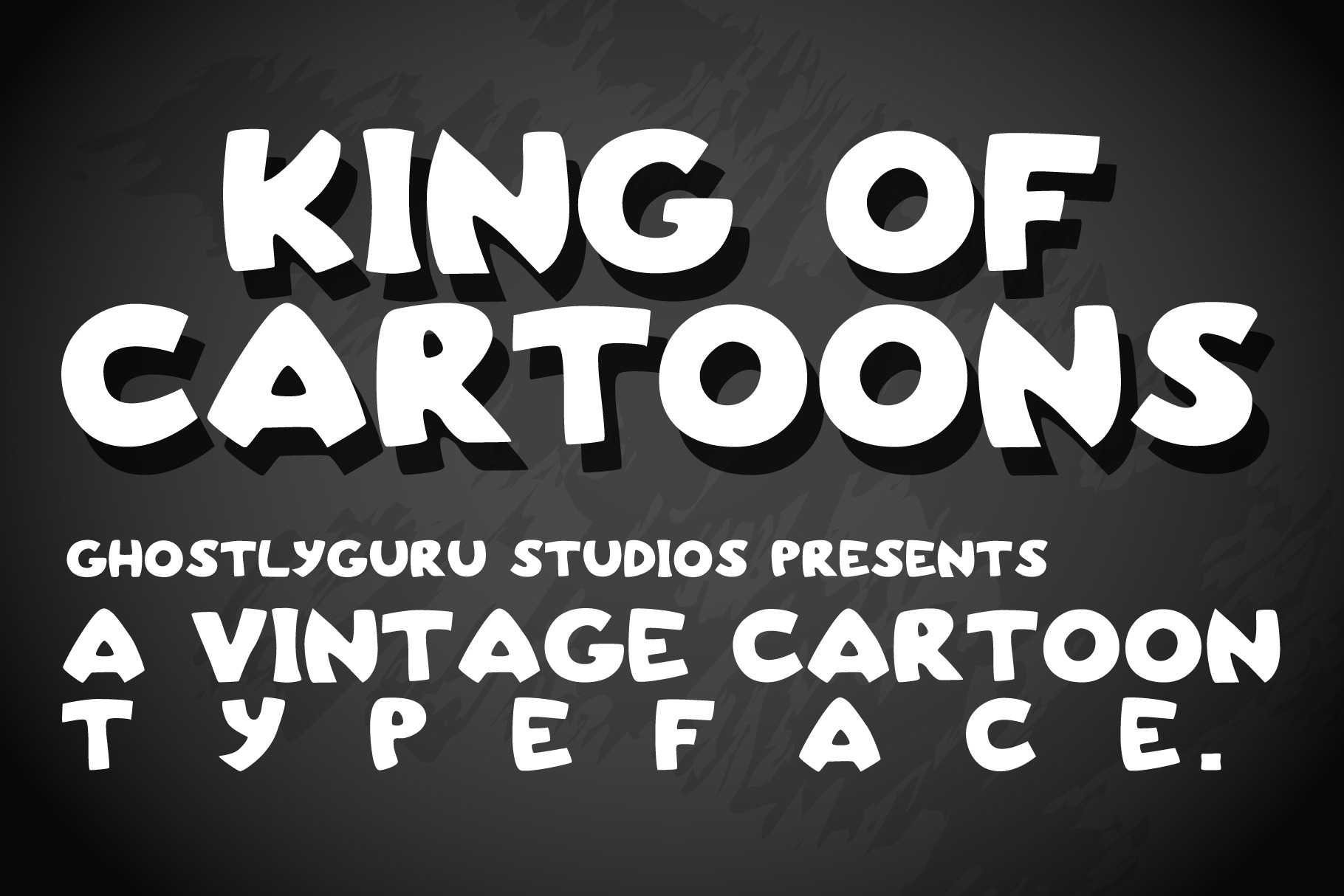
King Of Cartoons - Typeface
Here's a typeface named after the King Of Cartoons from Pee-wee's Playhouse!
It's a retro/vintage typeface inspired by cartoon title cards of yesteryear.. I'm no Ub Iwerks, but hey looks pretty good to me!